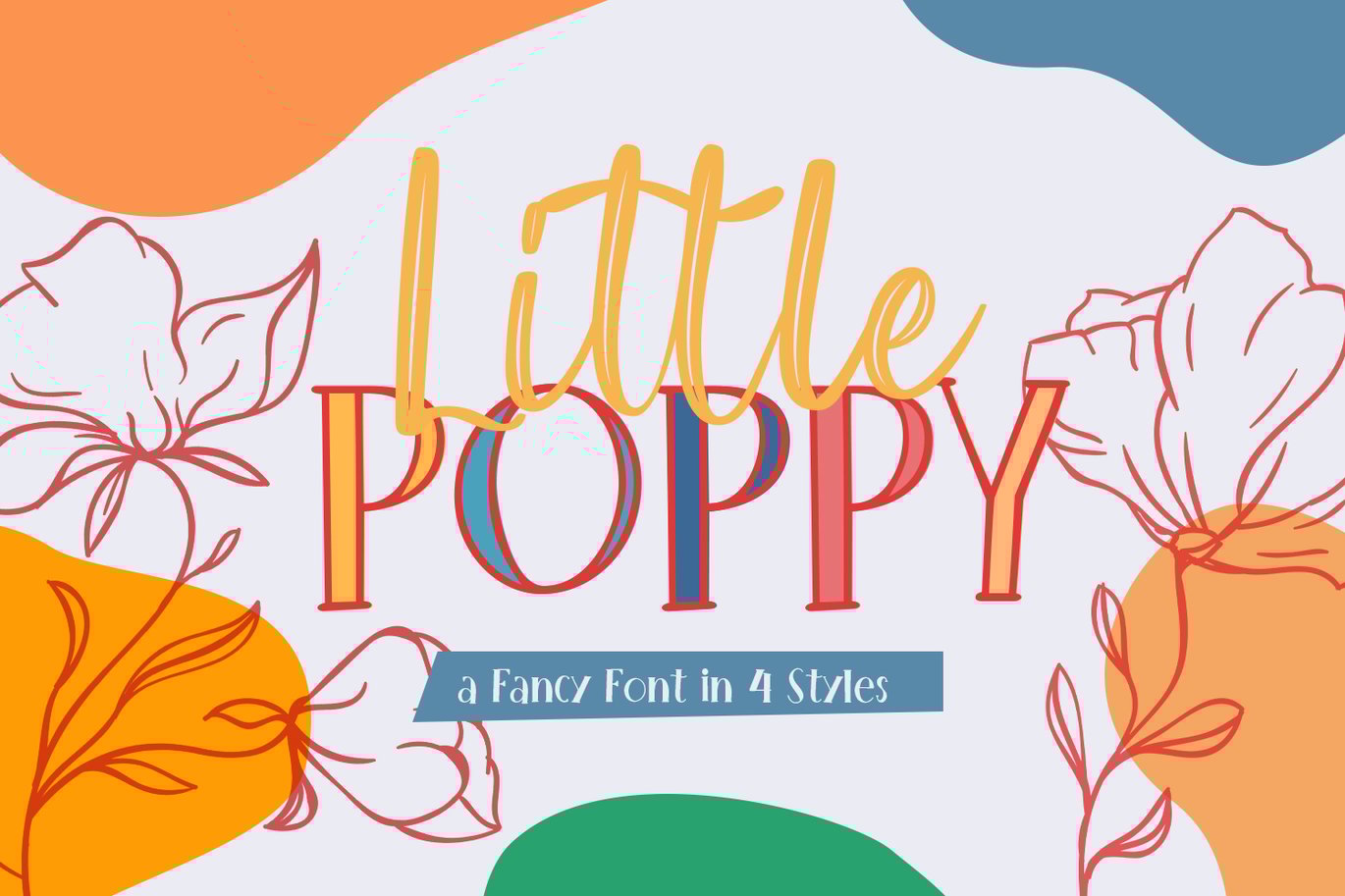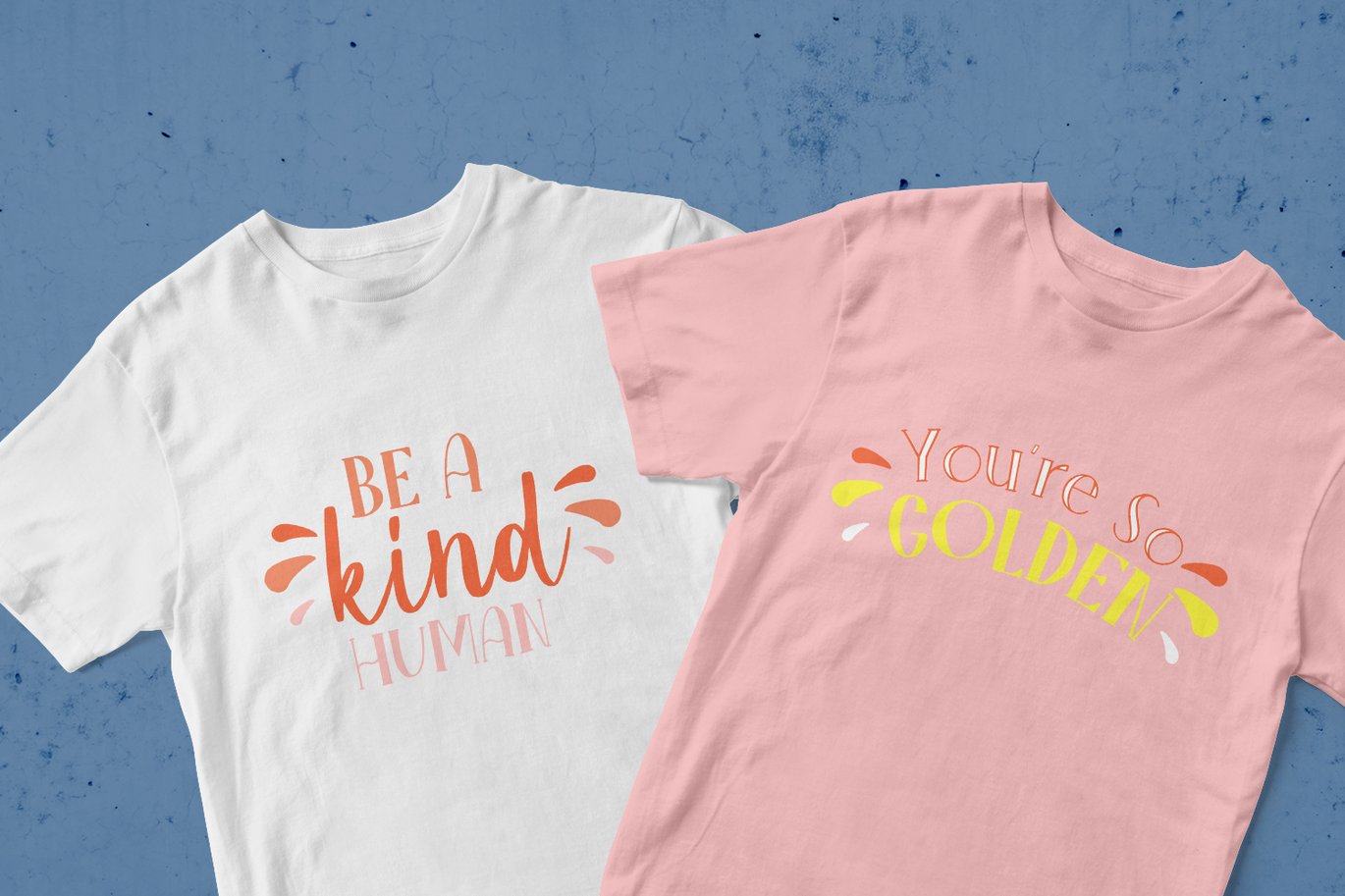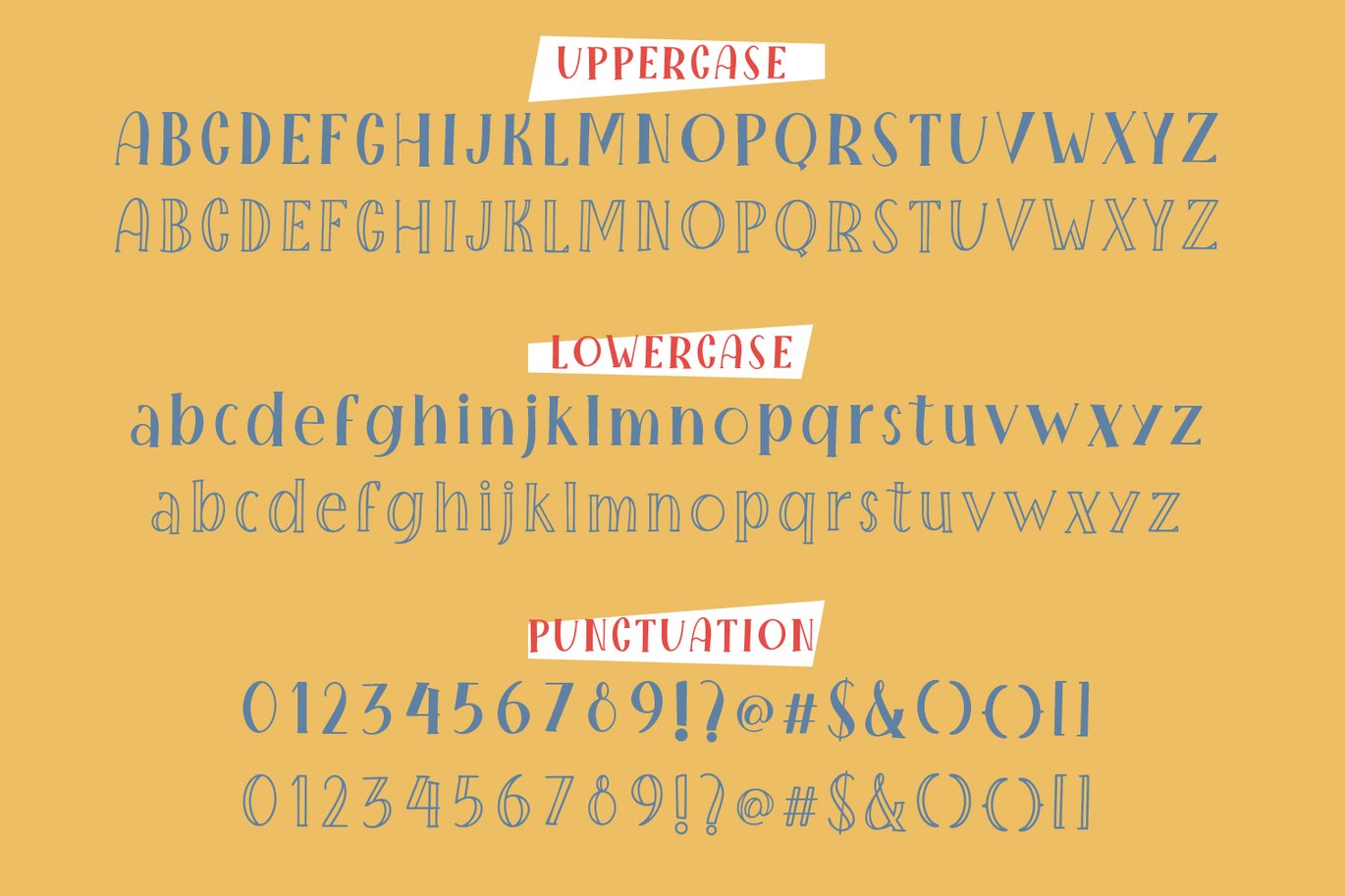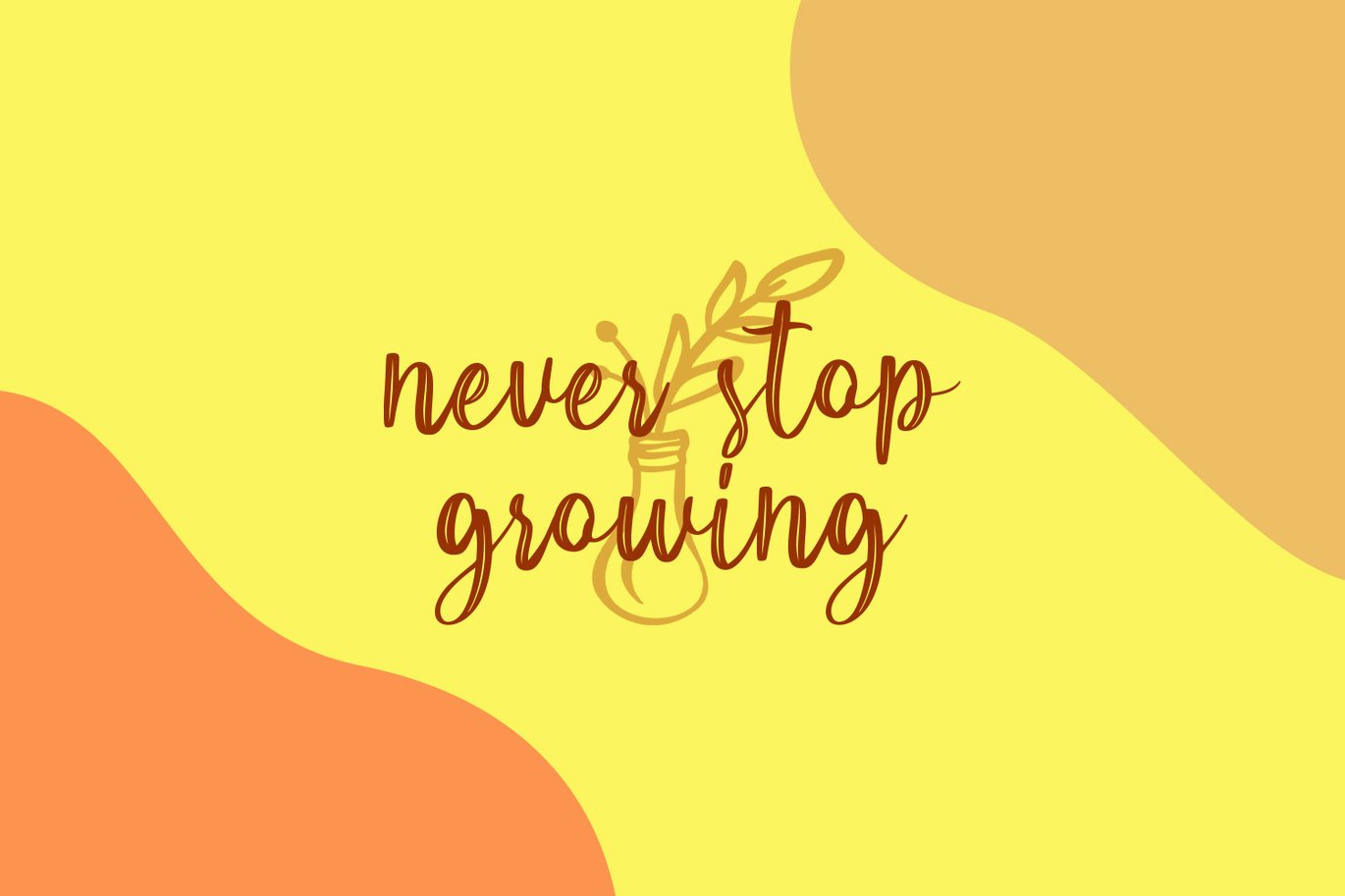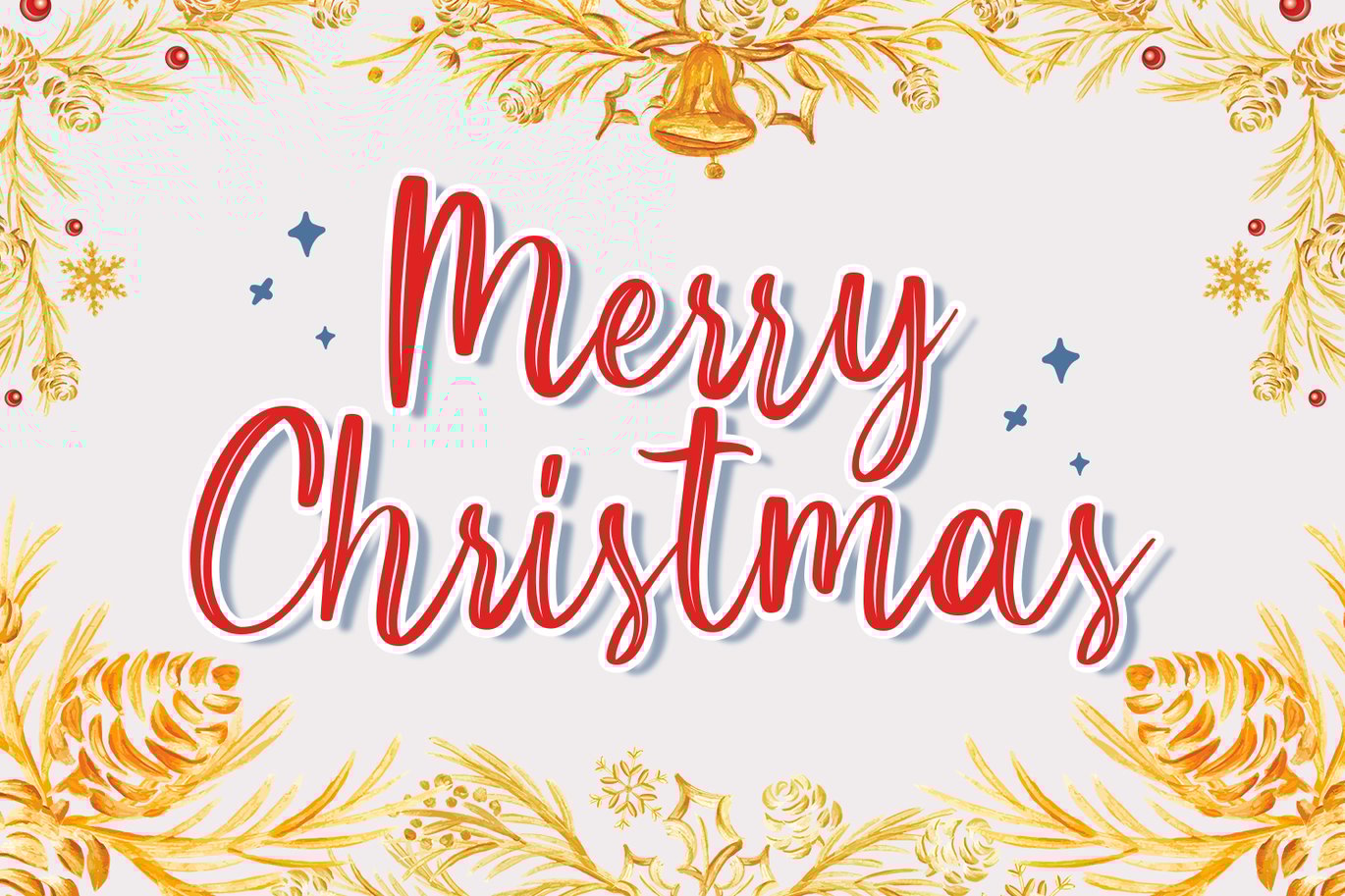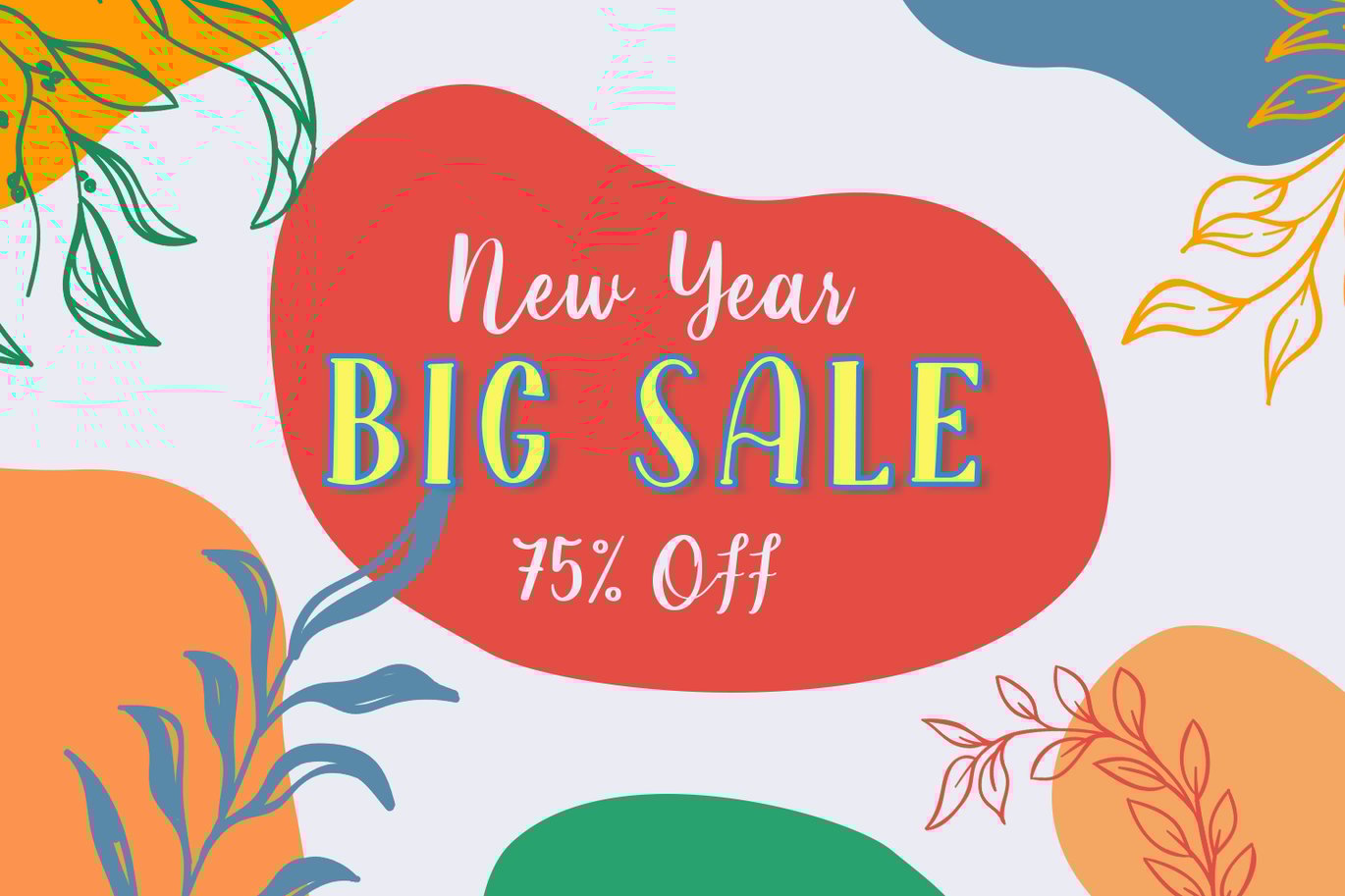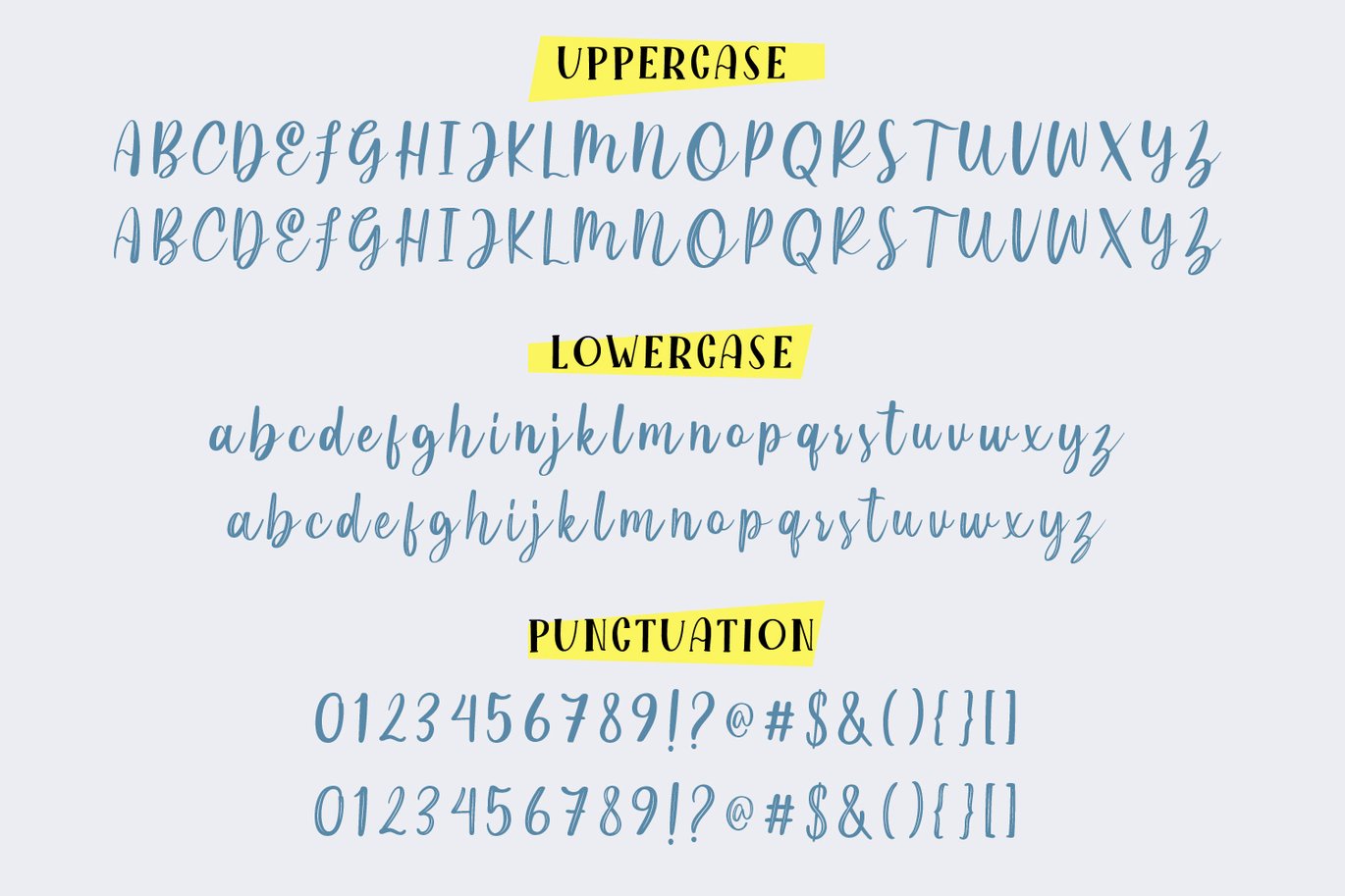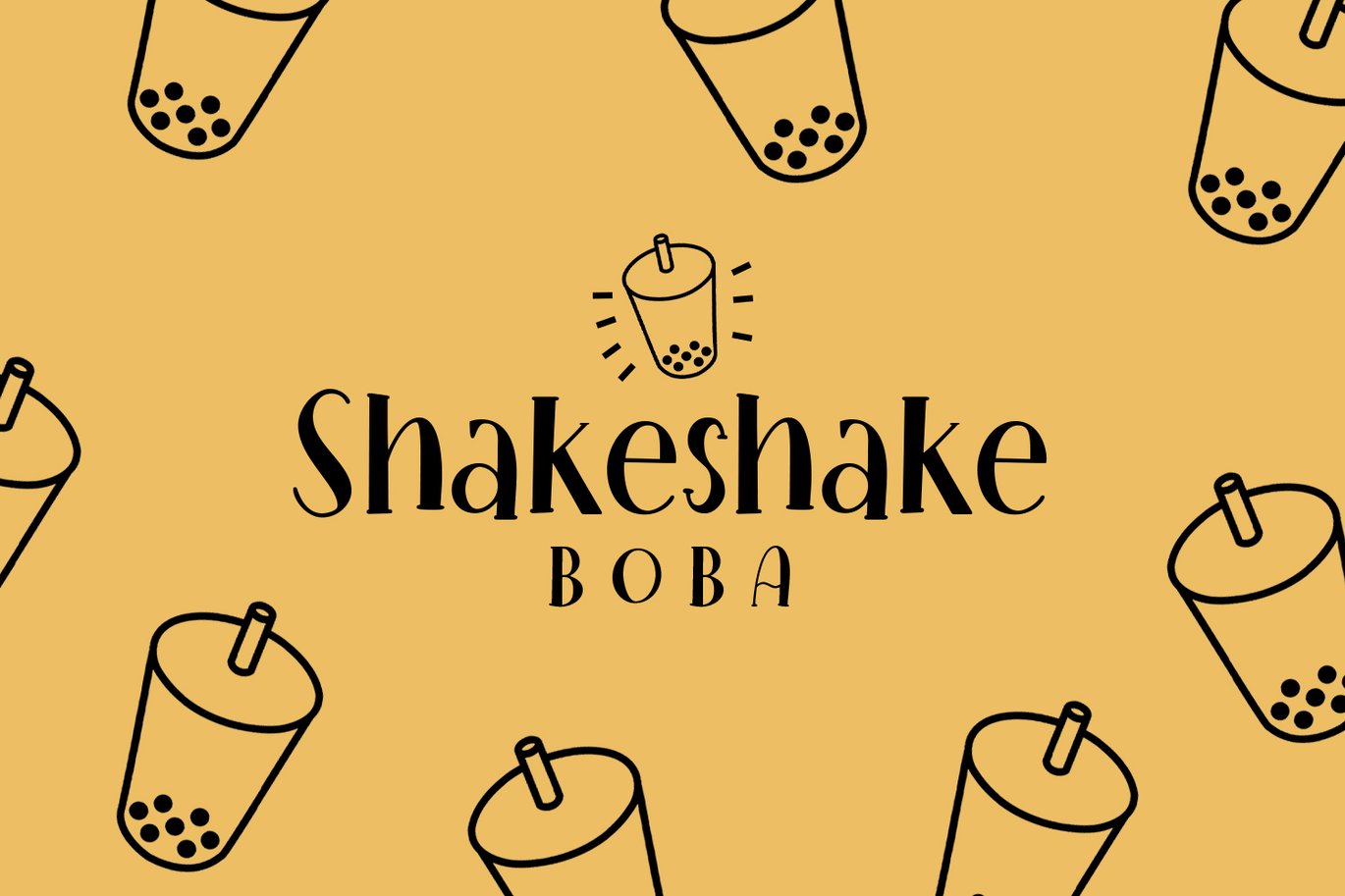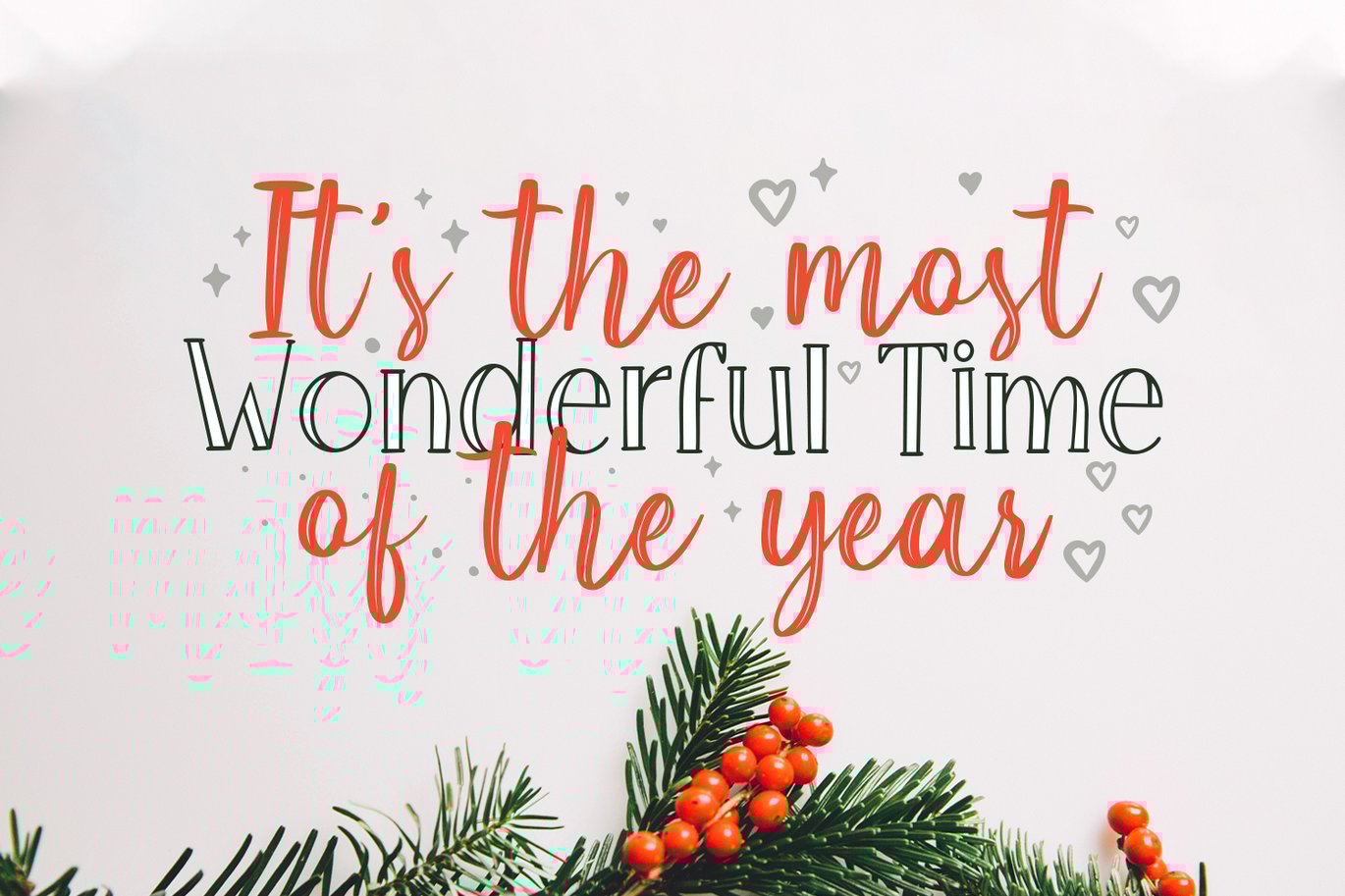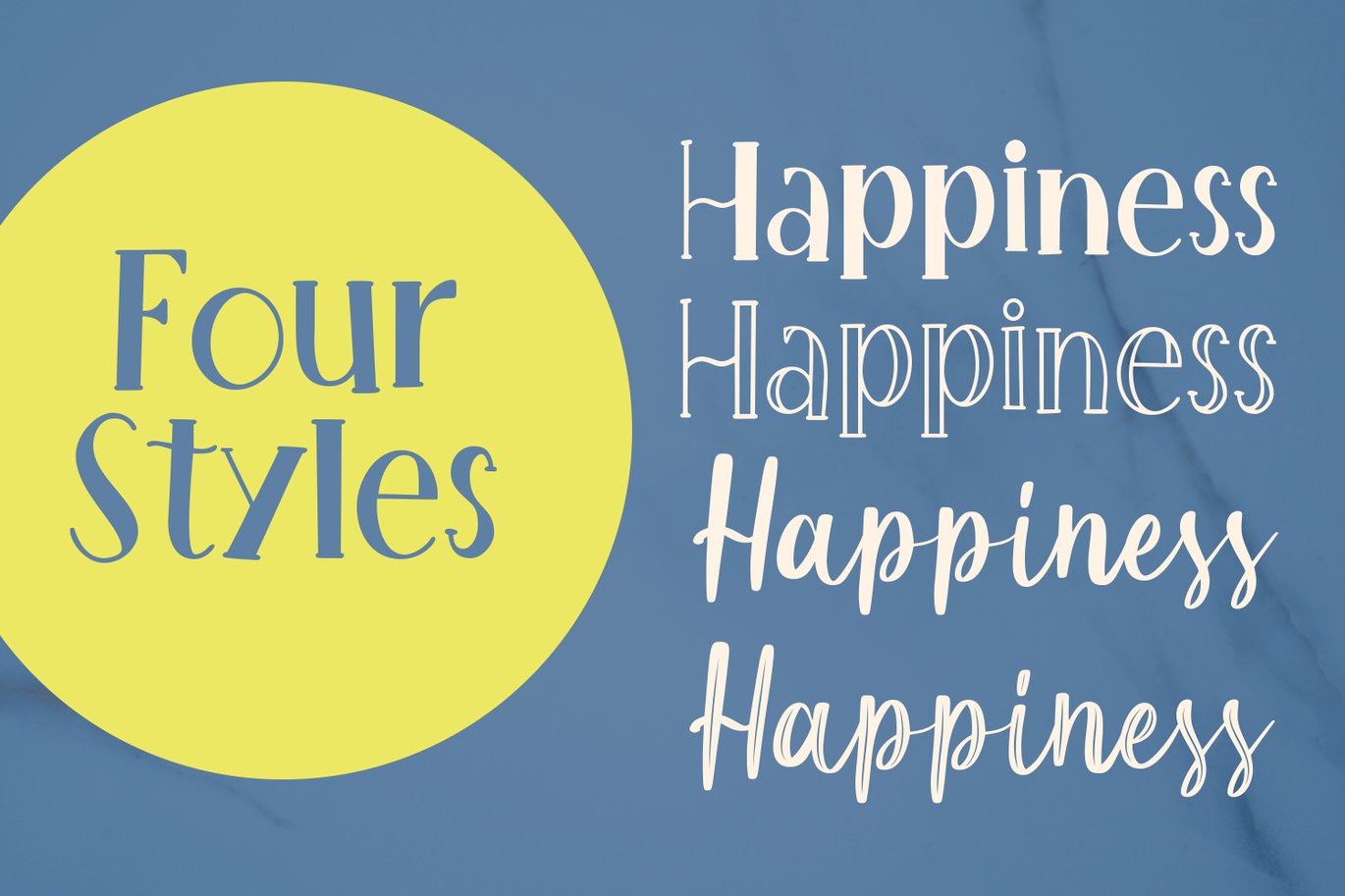
LittlePoppy Fancy Font
Introducing the new LittlePoppy Fancy Font the new Fancy Modern, for those of you who need a chic, elegant, modern touch for your design needs.
LittlePoppy Fancy Font is built with ligatures, alternative start and end swashes, numbers, punctuation marks, and also multilanguage.